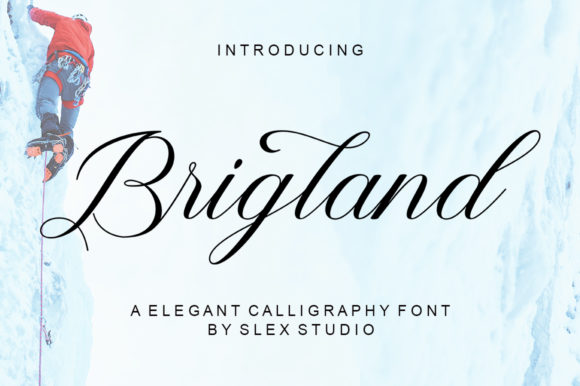
Journey into the realm of sophistication and charm with Brigland Font, a script masterpiece crafted by the renowned Slex_studio. This exquisite font family, designed to elevate your creative endeavors, seamlessly blends timeless elegance with a modern twist. Brigland's graceful strokes and elaborate details lend an air of refinement to any project, inviting your imagination to explore new horizons of visual artistry.
Unleash your creativity and let Brigland guide you through an enchanting world of design possibilities. Its versatility shines through various projects, from branding and logos to wedding invitations and signatures. Brigland's inherent charm adds a touch of elegance to headings, labels, and social media posts, making your content stand out from the crowd.
Embrace the allure of Brigland and elevate your designs to new heights. Experience the beauty of handwritten typography, where each letter dances across the page with grace and precision. Let Brigland's captivating curves and flourishes ignite your passion for design and transform your projects into works of art.
With Brigland by your side, you hold the key to unlocking a world of creative expression. Its timeless appeal transcends trends, ensuring your designs remain captivating and relevant for years to come. Embrace the magic of Brigland and embark on a journey of visual storytelling that leaves a lasting impression.